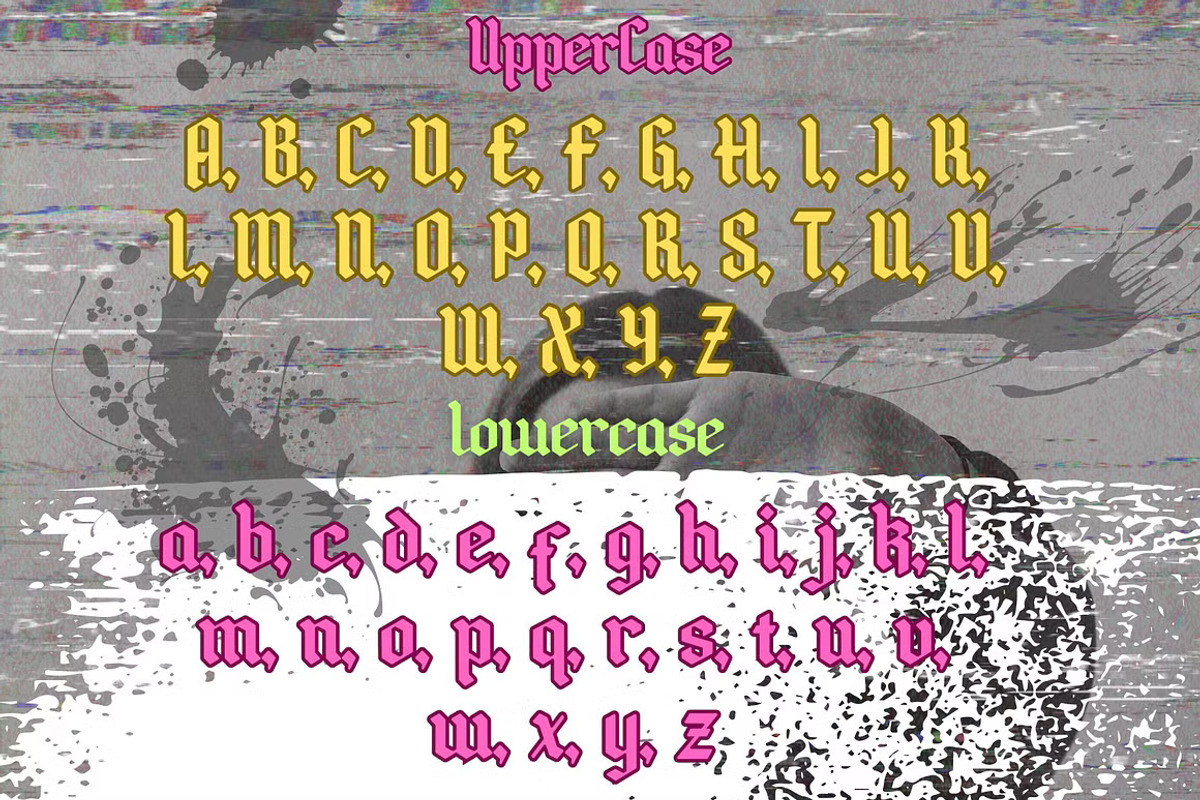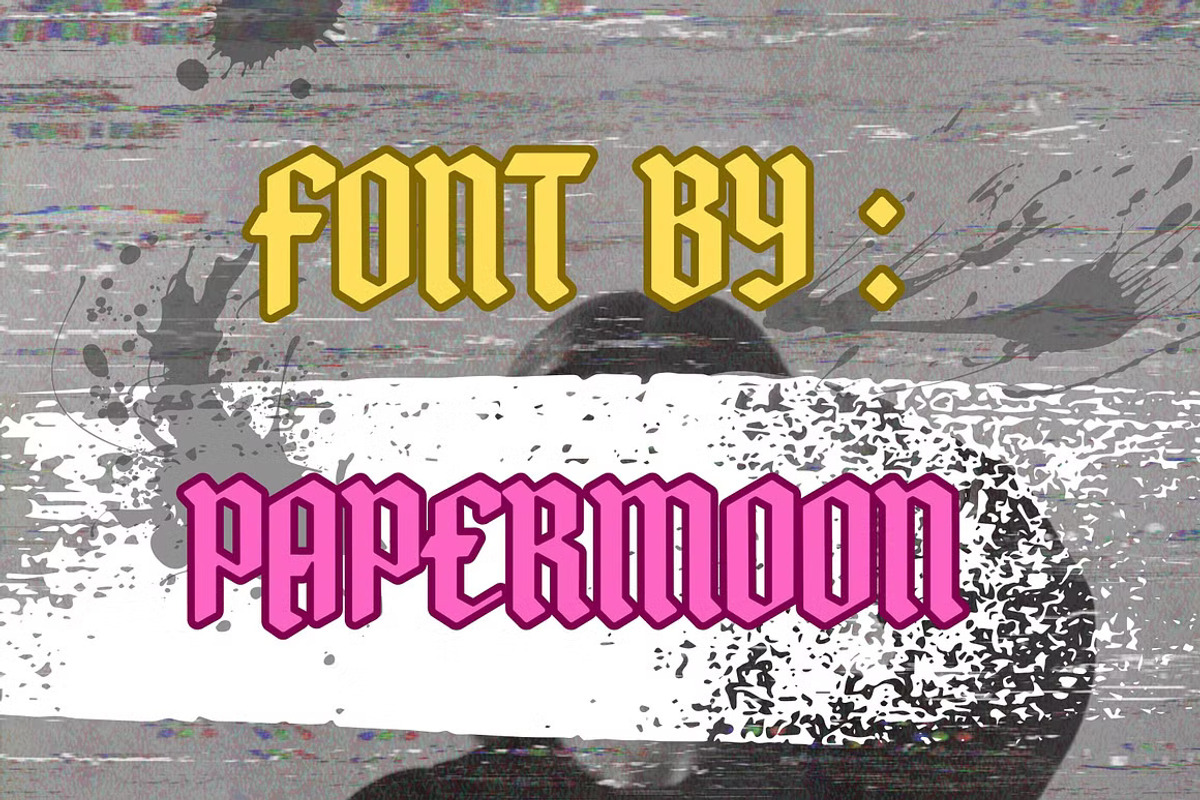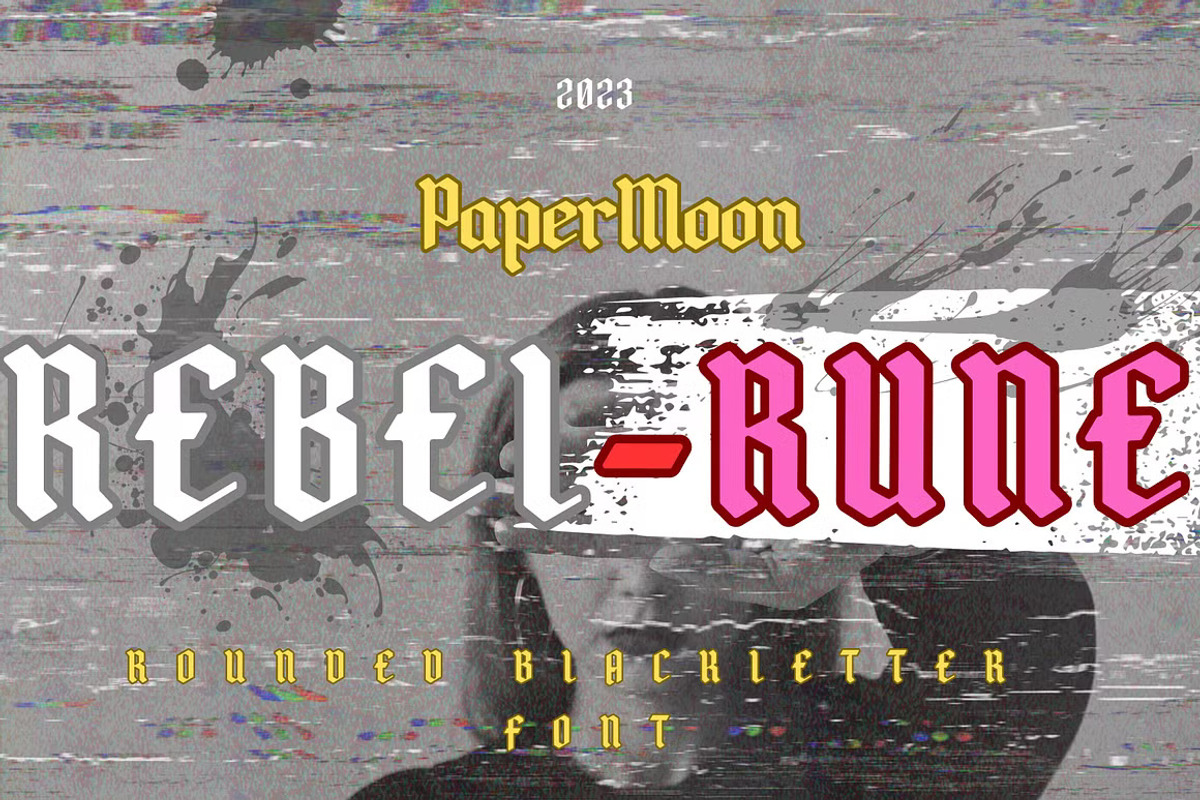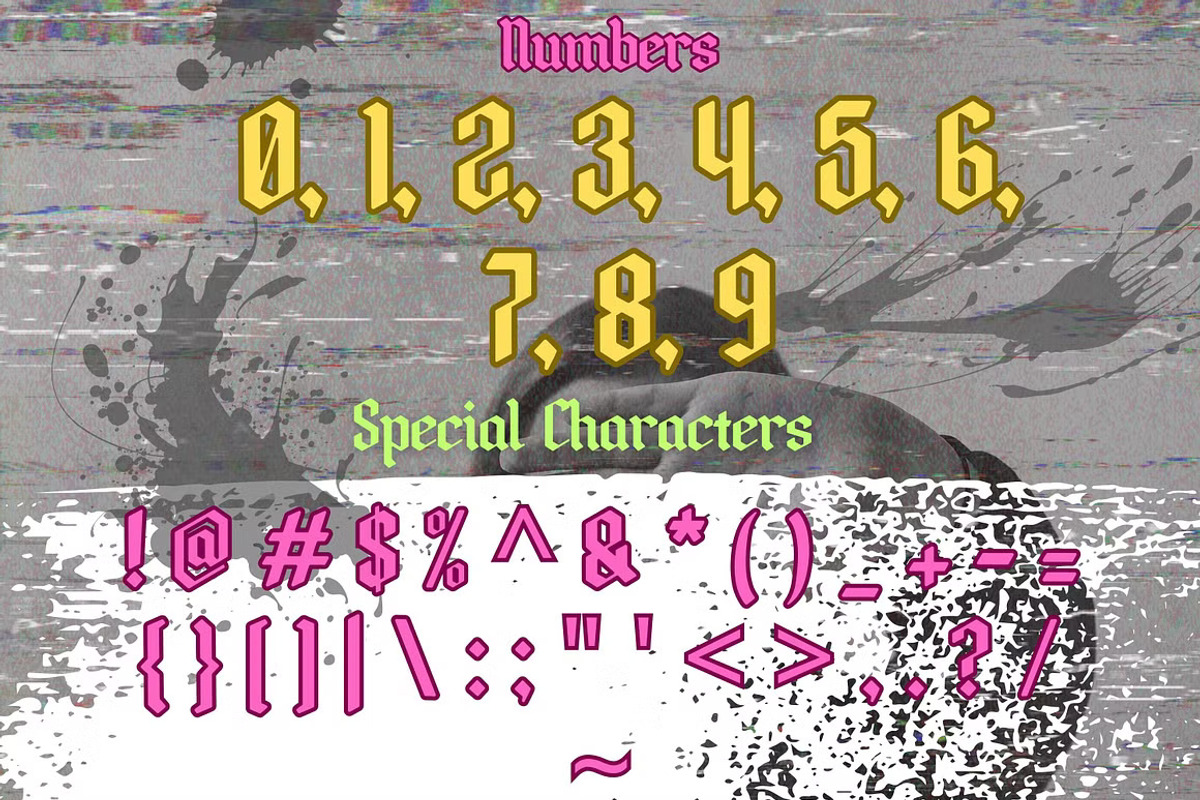
RebelRune - Rounded Blackletter Font
Introducing "RebelRune" - A Retro Blackletter Font with a Modern Edge
Step back in time with RebelRune, a blackletter font that effortlessly blends retro style with a contemporary twist. Designed with refined, rounded edges, this font brings bold character and a distinctive flair to your creative projects, infusing them with both elegance and strength.
Let your designs make an impact with RebelRune—a typeface that pushes boundaries and sets your work apart. With alternate characters, ligatures, and broad multi-language support, RebelRune is crafted to speak to audiences worldwide, providing versatility and global reach for all your design needs.
Ideal for a variety of creative applications, RebelRune is the perfect fit for:
Bold headings Attention-grabbing flyers Personalized greeting cards Stylish product packaging Captivating book covers Iconic printed quotes Eye-catching logotypes Trendy apparel design Dynamic album covers ⦿ Key Features:
212 Glyphs: A comprehensive set of characters for diverse and creative design options Uppercase: Make a strong statement with bold uppercase lettering Numerals & Punctuation: Precision-crafted for smooth integration in your compositions Alternates & Ligatures: Enhance your typography with unique, harmonious character combinations Multilanguage Support: Reach global audiences with support for over 60 Latin-based languages RebelRune isn’t just a typeface; it’s a fusion of past and present, ready to transform your projects with a bold, impactful presence. Unleash your creativity and let RebelRune become the centerpiece of your next design journey.